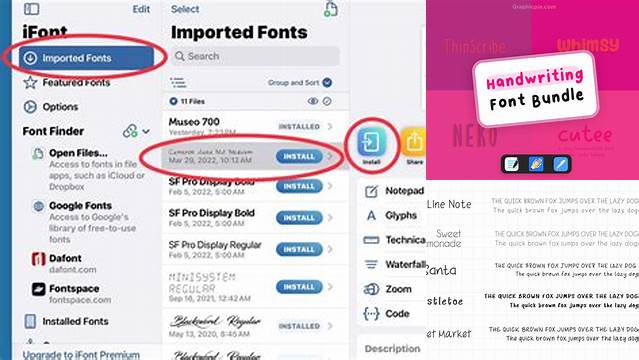
Import Fonts To Notability: A Simple Guide
Hey guys! Ever wondered if you can jazz up your Notability notes with some fancy fonts? The answer is a resounding YES! Adding custom fonts to Notability can seriously level up your note-taking game, making your digital scribbles more visually appealing and personalized. This guide will walk you through the ins and outs of importing fonts to Notability, ensuring your notes stand out from the crowd. Get ready to unleash your creativity and transform your note-taking experience!
How to Import Fonts into Notability: Step-by-Step Instructions
Alright, let's dive straight into the process of adding fonts to Notability. It's not as complicated as you might think. First things first, you need to get your hands on some fonts. You can find them on various websites, both free and paid. DaFont, Google Fonts, and Font Squirrel are great places to start. Once you’ve found a font you love, download it. The files will usually be in a .ttf or .otf format. Then, you'll need a file manager app. These apps allow you to browse your files on your iPad or other iOS devices. iFiles, Documents by Readdle, and File Manager are a few popular choices. After installing the app, open the file manager, and find the font file you downloaded. Now, tap on the font file, and an option to "Open In" should appear. Choose "Notability." If Notability isn't an option, you might need to install a third-party font app like AnyFont or Fontcase to handle the font installation on your device. After the font is installed, open Notability, and the new font should be ready to use! Go to the text tool, and you should see your new font listed among the others. Easy peasy, right? Let's make sure to cover a few more details.
Finding and Downloading Fonts for Notability
Okay, so you're ready to explore the world of fonts, that's awesome! There are tons of websites where you can download fonts for Notability. Google Fonts is a fantastic starting point because it offers a vast library of free fonts that are perfect for all sorts of projects. Another option is DaFont, known for its wide selection of both free and premium fonts. It's a goldmine of creative fonts, and you’re sure to find something that matches your style. Then there is Font Squirrel, known for its fonts which are completely free for commercial use, making it great if you're using Notability for business purposes or professional presentations. Before you download, make sure to check the license agreement for the fonts. Some fonts are free for personal use, while others might require a license for commercial projects. Download your preferred fonts in the correct format – .ttf (TrueType Font) or .otf (OpenType Font). After downloading, make sure to save your fonts to a convenient location on your device, like your Downloads folder. This will make them easier to find when you start the installation process.
Installing Fonts on Your iPad or iOS Device
So, you've got your fonts downloaded, now it's time to get them onto your iPad! The process can vary slightly depending on the iOS version and the apps you use, but here’s a general overview. First, you'll need a file manager app like Documents by Readdle or iFiles. These apps let you access and manage files on your iPad. Once you've installed a file manager, open it and locate the font files you downloaded. Tap on the font file, and look for an “Open In” option, this is crucial. Select “Open In,” and if Notability isn’t listed (which is common), you’ll need to use a font management app like AnyFont or Fontcase. These apps are specifically designed to install custom fonts on iOS devices. Follow the instructions provided by the font management app to install your fonts. Once the installation is complete, open Notability and start a new note or open an existing one. Go to the text tool, and check the font selection menu – your newly installed fonts should be there, ready to make your notes pop! This is usually the most difficult part of the whole process, so don’t get discouraged if you need to try a few times.
Troubleshooting Font Import Issues in Notability
Sometimes, things don't go as planned. If you're having trouble importing fonts into Notability, don't worry, we can troubleshoot it! First things first, make sure your font files are in a compatible format, which is typically .ttf or .otf. Double-check that the font files you downloaded are not corrupted. Try downloading the font again from a different source. If the font still doesn't show up in Notability, ensure you have a font management app like AnyFont or Fontcase installed and that you've correctly followed the font installation process. Restarting your iPad can also solve the problem. Close Notability completely (swipe it up in the app switcher) and then restart your iPad. Then, open Notability and check if your fonts are available. If your fonts still don't appear, make sure Notability is updated to the latest version. You should also check if there are any conflicts with other apps or system settings that could be interfering with font installation. Sometimes, certain settings in your iPad or Notability can cause problems. Ensure that your iPad's system software is up to date. If you've tried all the troubleshooting steps and still can't see your fonts, the font itself might not be compatible with Notability. Try a different font to see if it works.
Using Custom Fonts to Enhance Your Notability Notes
Alright, you've successfully imported your fonts – awesome! Now, how do you use them to make your Notability notes look amazing? In Notability, tap the text tool (the “T” icon) to start typing. Select the text you want to format. From the text formatting options, choose the font you've imported. Experiment with different font styles, sizes, and colors to see what works best for your notes. Use a clean, readable font for main body text and a more decorative font for headings or emphasis. Create a consistent look and feel by sticking to a few fonts throughout your notes. Use bold and italic to highlight important information and make your notes easier to read. Add colors to create visual cues and organize your thoughts. By experimenting with different font combinations and styles, you can create notes that are both informative and visually appealing. Consider the purpose of your notes. If you’re using Notability for schoolwork, pick fonts that are easy to read. If you’re creating a personal journal, you have more freedom to choose decorative fonts. Think about the overall layout of your notes and choose fonts that complement each other. And most importantly, have fun! Try new things and see what works best for you.
Best Fonts for Notability: Recommendations and Styles
Choosing the right font can dramatically improve the look and feel of your notes. A good starting point is to explore the different font categories. Serif fonts (like Times New Roman or Georgia) have small strokes at the end of each letter and are great for body text because they’re generally easy to read. Sans-serif fonts (like Arial or Helvetica) are clean and modern, making them ideal for headings and titles. Script fonts (like Brush Script or Pacifico) mimic handwriting and can add a personal touch to your notes, perfect for journal entries or creative projects. Display fonts (like Bebas Neue or Impact) are bold and eye-catching and work best for headlines or emphasis. Here are a few popular fonts for Notability. Open Sans is a versatile sans-serif font, great for body text. Lato is another clean and readable sans-serif. Montserrat is a modern sans-serif font with a geometric design. Roboto is another excellent sans-serif choice, especially for digital displays. Raleway is a stylish sans-serif, perfect for headings and titles. Dancing Script is a fun and friendly script font for personal notes. Ultimately, the best fonts depend on your personal preferences. Test out different fonts and see what looks best for your notes.
Font Management Apps for iOS: A Closer Look
Since Notability itself doesn't directly support installing fonts, you will need a third-party font management app to get the job done. AnyFont is a popular choice. It's user-friendly, easy to use, and supports various font formats. To use AnyFont, download the app, install it on your device, and open the font file from your file manager. Then, follow the on-screen instructions to install the font. Fontcase is another excellent option. It offers a clean interface and makes it easy to manage your installed fonts. Just like with AnyFont, you'll need to download it from the App Store, open your font files with the app, and follow the instructions. Other alternatives include Font Manager and iFont. When choosing a font management app, consider the features offered, the user interface, and the overall ease of use. Look for an app that supports the font formats you're interested in and that offers clear instructions for installation. Keep in mind that some font management apps may require a small fee, while others offer free versions with optional in-app purchases. Ensure the app is compatible with your iOS version to avoid any compatibility issues. By using a dedicated font management app, you can seamlessly import fonts into Notability and personalize your notes.
Notability vs. Other Note-Taking Apps: Font Customization Comparison
Notability isn’t the only game in town when it comes to note-taking apps! Let’s see how it stacks up against the competition in terms of font customization. GoodNotes is a strong competitor and offers a built-in font library, allowing you to choose from a variety of fonts without needing to import them. It makes for a simple, straightforward note-taking experience. GoodNotes also supports custom font imports, so you're not limited to its built-in options. Evernote offers a decent range of built-in fonts, but it's less focused on extensive font customization. You can change font styles, sizes, and colors, but the options for importing custom fonts are more limited. OneNote offers a selection of fonts, but it does not directly support custom font imports on iOS. Nebo is another note-taking app that focuses on handwriting and offers excellent handwriting recognition. While it has fewer font customization options than GoodNotes or Notability, it excels in other areas. Comparing Notability, it offers a solid balance. You can use external font managers to add custom fonts, and once those fonts are in the system, they’re available for your notes. Notability strikes a balance between the ease of use of apps like GoodNotes and the more limited customization options of apps like Evernote and OneNote. The overall experience of importing custom fonts can be a bit more involved than with some other apps, but the added flexibility in customization is a worthwhile tradeoff for many users.
Frequently Asked Questions About Importing Fonts to Notability
Got questions about adding fonts to Notability? Let's clear things up with some FAQs! Can I use any font in Notability? Not all fonts may be compatible. Always double-check compatibility. Do I need a font management app? Yes, you will need a font management app to install custom fonts. How do I install a font? Find and download the font files. Use a font management app to install the font. Are there any free fonts? Yes, there are many free fonts available. Check the font license. What font formats are supported? Notability typically supports .ttf and .otf. Are there any legal considerations? Always respect font licenses. Use fonts ethically. By understanding these FAQs, you can easily use custom fonts. These are basic but can help you to avoid any confusion or challenges. Note-taking will be simplified. You can enhance your notes and your creativity with these simple tips.